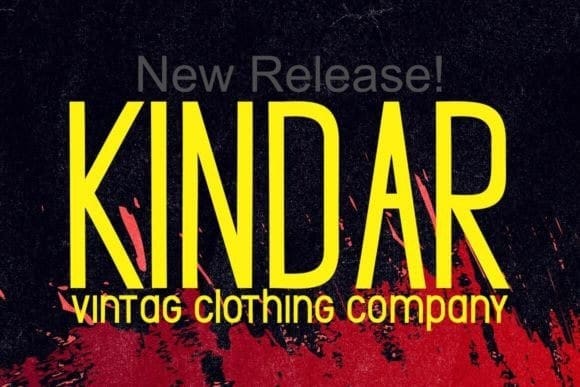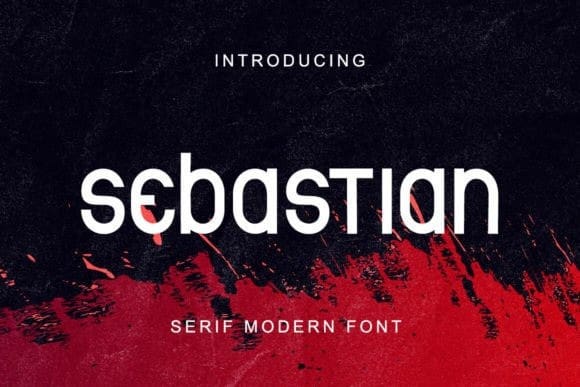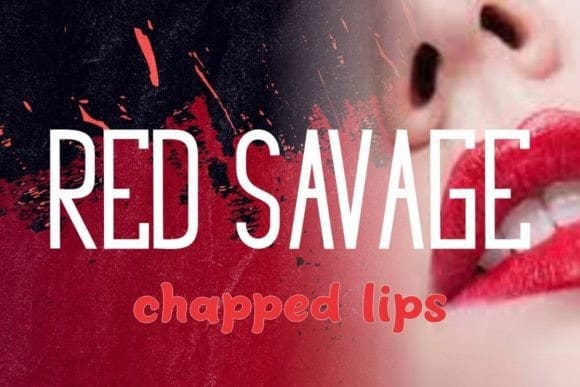
Sebastian Display Font
Sebastian Display Font, is my new elegant serif font that will give your projects a touch of luxury and style. It’s perfect for logotypes, branding, monograms and wedding invitations, blog headlines, and more. Browse through all the previews and get as inspired as I was when creating this font.